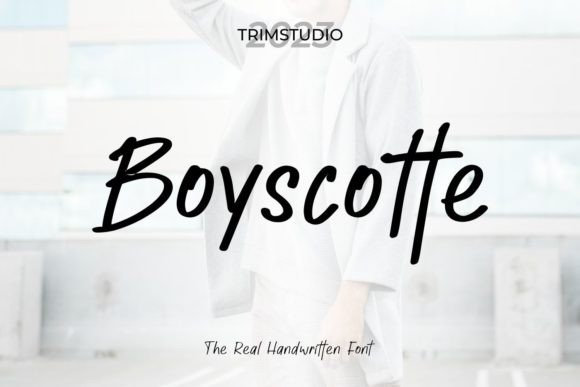
The Elegance of Boyscotte Font: Elevate Your Designs with Sophistication
That’s when I stumbled upon Boyscotte Font, a stunning handwriting font that completely transformed my design. Its fluid lines and elegant curves added a touch of grace that was exactly what I needed. If you’re a designer, crafter, or creative hobbyist looking to elevate your projects, you’re in the right place. Let’s dive into the world of Boyscotte Font and explore what makes it so special.
An Honest Review of Boyscotte Font
- ✨ Fluid Lines and Elegant Curves: Boyscotte Font boasts beautiful, flowing lines that give it a sophisticated and elegant feel.
- 💕 Perfect for Wedding Invitations and Branding: The font’s sophisticated look makes it ideal for wedding invitations, social media graphics, and branding materials.
While Boyscotte Font is an excellent choice for many projects, there are a few things to keep in mind:
- ⚠️ Legibility at Small Sizes: Like many script fonts, Boyscotte can be a bit tricky to read at very small sizes. Make sure to test it out at different sizes to ensure it works for your project.
- 🤔 Pairing with Other Fonts: As with any script font, pairing Boyscotte with other fonts can be a bit challenging. Experiment with different combinations to find the perfect match.
The Story Behind Boyscotte Font
Boyscotte Font was designed with elegance and sophistication in mind. Its creator aimed to craft a font that would be perfect for special occasions, such as weddings and anniversaries. The result is a beautiful, handwriting font that exudes refinement and poise.
| Font Name | Boyscotte Font |
| Author | Trim Studio |
Q: Is Boyscotte Font suitable for body text?
A: While Boyscotte Font is beautiful, it’s not ideal for body text due to its script nature and potential legibility issues at small sizes.